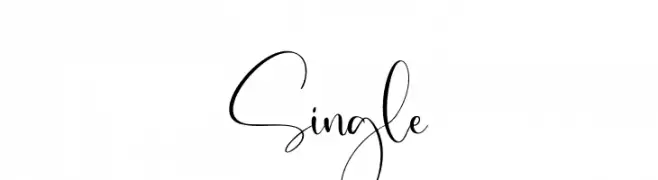
( Fonts by Mariyana )
A dynamic, handwritten font with elegant, fluid strokes and a personal touch.
( Fonts by Gassstype )
A bold, energetic script font with a hand-drawn, dynamic style.
( Fonts by Andang Prasetyo )
An elegant, flowing script font with smooth, cursive strokes and graceful curves.
( Fonts by Insan Nurbahagia )
A graceful, handwritten script font with a signature-like elegance.
( Fonts by Excellent Ritma Florendia )
A bold, energetic script font with dynamic strokes and a lively, expressive style.
( Fonts by Salamahtype.com )
A flowing, handwritten cursive font with elegant, connected characters.
( Fonts by Letterena Studios )
A dynamic handwritten font with fluid strokes and expressive character forms.
( Fonts by Jadatype )
A lively and energetic script font with a handwritten feel.
( Fonts by Letterena Studios )
An elegant, flowing script font with a natural handwriting style.
( Fonts by Type Factory )
A bold, energetic handwritten font with expressive strokes and a playful style.
( Fonts by Type Factory )
A bold, playful handwritten font with dynamic strokes and an informal style.
( Fonts by Yumna Family )
A playful, handwritten font with smooth, rounded edges and a casual style.
( Fonts by Timur Type )
A lively and expressive handwritten font with fluid, dynamic strokes.
( Fonts by Multype Studio )
A fluid and elegant script font with a handwritten appearance.
( Fonts by Aisyah )
A playful, casual handwritten font with smooth curves and a personal touch.
( Fonts by Letterena Studios )
A bold, expressive handwritten font with dynamic strokes.
( Fonts by Aestherica Studio )
A playful, casual handwritten font with fluid, slightly irregular strokes.
( Fonts by Type Factory )
A graceful and fluid script font with elegant, interconnected strokes.
( Fonts by Erlina Graphic )
A playful, flowing script font with smooth, cursive strokes.
( Fonts by Scratchones )
A bold, handwritten-style font with tall, narrow letters and dynamic strokes.
( Fonts by MJType )
A playful, rounded font with smooth curves and a friendly vibe.
( Fonts by Nathatype )
A graceful and elegant script font with a calligraphic style.
( Fonts by Octotype | Thomas Boucherie )
A cursive, handwritten font with a signature-like elegance.
( Fonts by scratchones )
A bold, expressive handwritten font with a lively and informal style.
( Fonts by Inermedia Studio )
A playful and elegant handwritten font with flowing curves and decorative swashes.
( Fonts by Andi Moz )
A playful, handwritten-style font with tall, narrow characters and consistent stroke thickness.
( Fonts by Perspectype Studio )
A bold, expressive brush-style font with dynamic strokes.
( Fonts by FinType Studio )
A modern, elegant handwritten script with fluid strokes.
( Fonts by Ikrar Bey Khubaib )
A lively handwritten font with fluid strokes and a casual elegance.
( Fonts by Maulana Creative )
An elegant, flowing script font with thin, delicate lines and graceful curves.
( Fonts by Damarletter )
A playful, whimsical script font with flowing, interconnected letters.
( Fonts by Din Studio )
A lively, brush-style handwritten font with dynamic strokes.
( Fonts by Mae D'nalgne )
A playful, casual handwritten font with a lively and informal style.
( Fonts by Maulana Creative )
A dynamic script font with fluid, connected strokes and a handwritten style.
( Fonts by Andika )
A playful, casual handwritten font with smooth, rounded strokes.